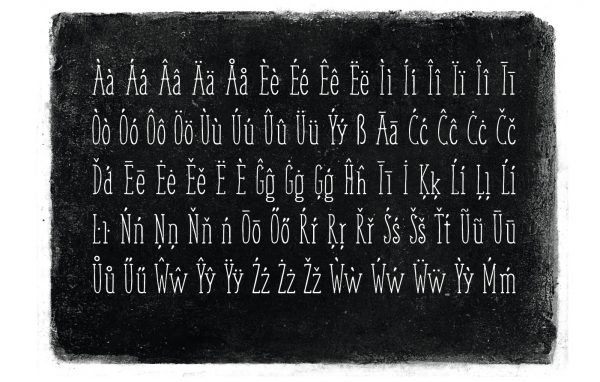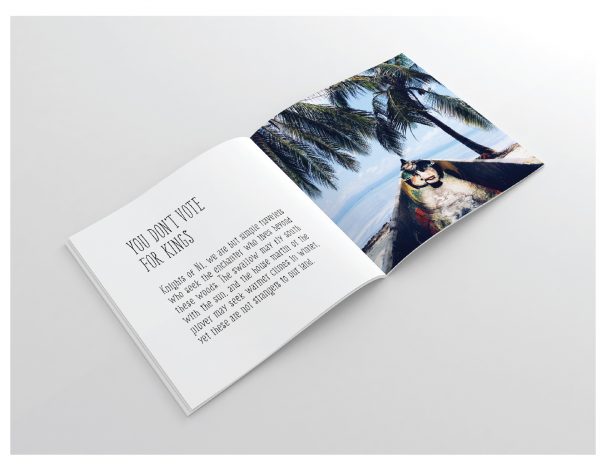
Free Fonts for everyone by Gatis Vilaks and Evita Vilaka! Fonts are 100% free for commercial and personal use and all of them high quality, with a lot of work in to kerning so they can work great!
Gatis Vilaks is a Designer, working in different areas of design. In early 2014 he founded a design studio called “RIT Creative”. It’s team consists with people from different areas of design – Graphic Design, Product Design, Web Design, Advertising, Fashion Design, Interior Design. At “RIT Creative” believe that if more different people work together more ideas and better solutions from different point of view will occur!
Evita Vilaka is a designer working in different design fields, such as creating graphic identities, packaging design, product design, interior design, etc.
Alepo Font
Alepo is rough sketch font, for any kind of use! Contains all the basic glyphs and characters.
Deepo – Handwriting Font
Deepo is a handwriting font – for deep ideas, mainly suitable for headlines or short descriptions! Contains all the basic glyphs and characters.
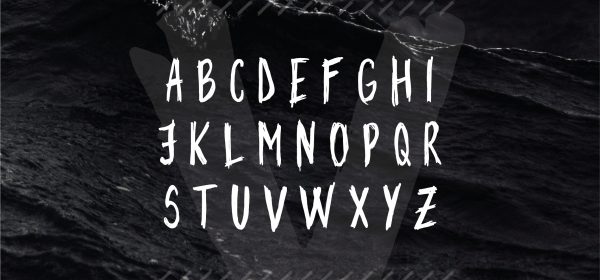
Vintii Font
Vintii is a cut-out font, for headlines and short descriptions, but it’s readable in larger blocks as well. Contains all the basic glyphs and characters.
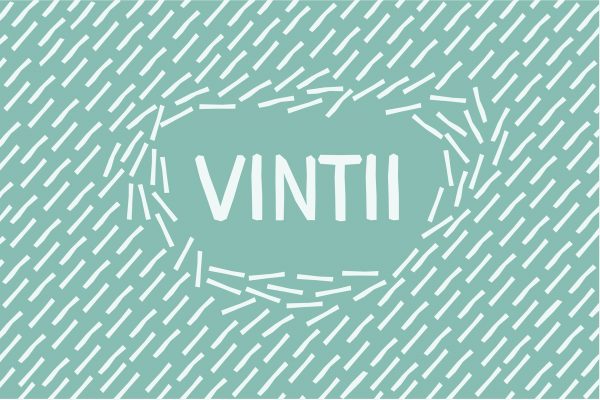
Weem Font
Weem is a serif handwritting font, it’s sketchy but a strong bone underneath, ideal for playful and a bit serious designs – as for headlines and small text blocks!